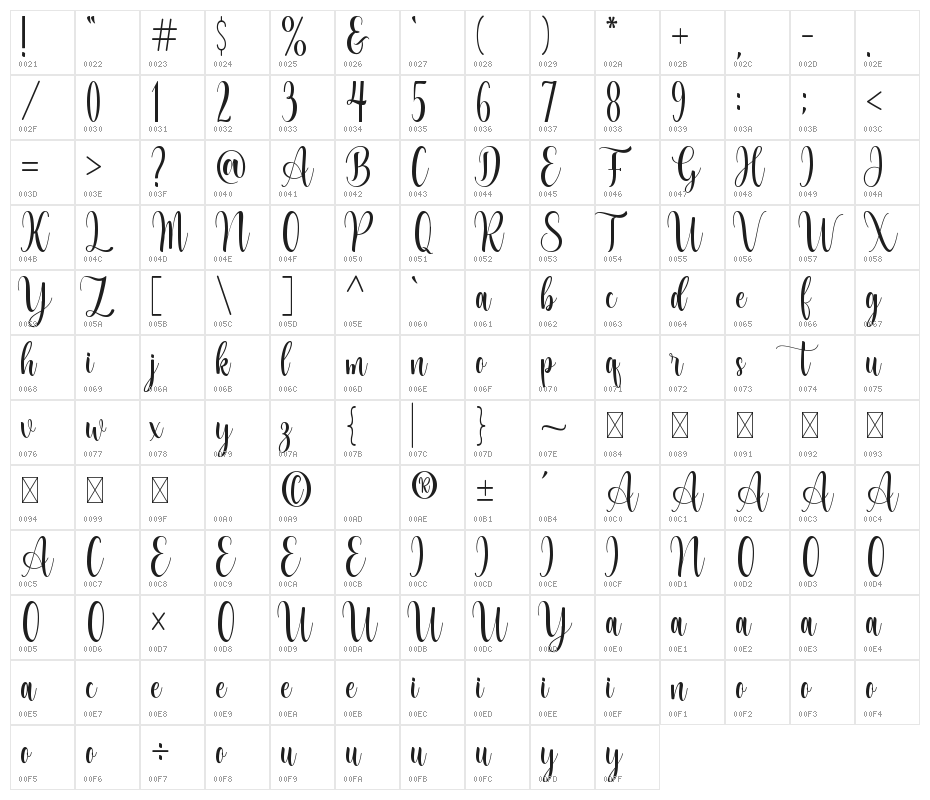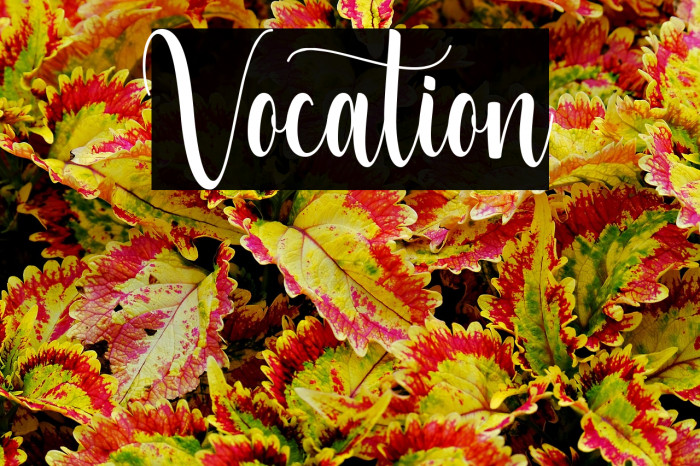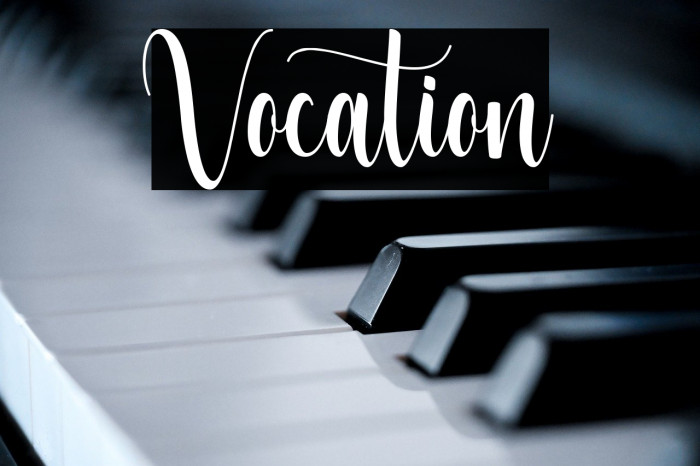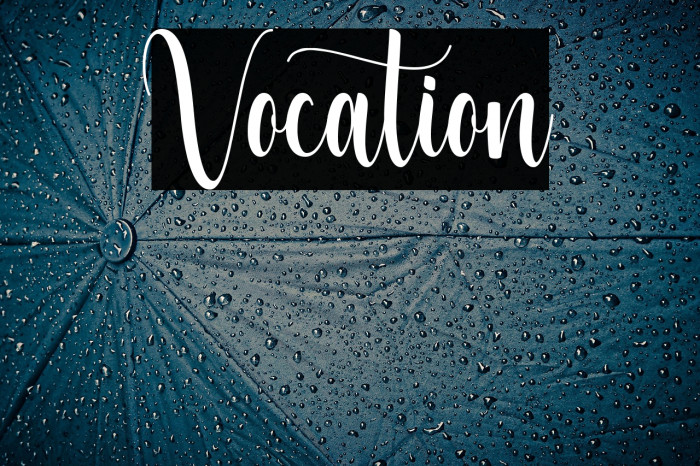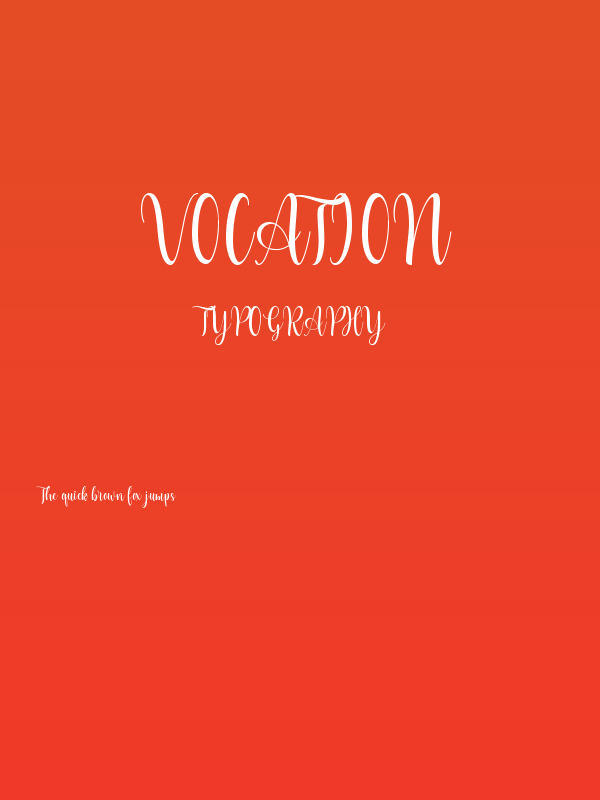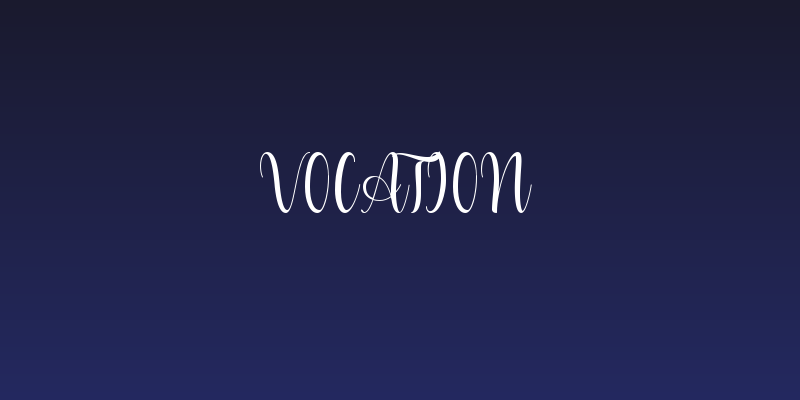
Vocation Font
Vocation Description
This font features an elegant and flowing script style, characterized by its cursive and connected letterforms. The uppercase letters exhibit a graceful, sweeping motion with varying stroke widths, adding a dynamic and sophisticated touch. The lowercase letters maintain a consistent flow, enhancing readability while retaining an artistic flair. The numerals and special characters are crafted with the same attention to detail, ensuring a cohesive appearance across all glyphs. This font's design is ideal for projects that require a touch of elegance and personality.
Overall StyleElegant
Use CaseLogos, Invitations, Decorative text
Proposed ProjectsWedding invitations, greeting cards, branding, and elegant packaging.